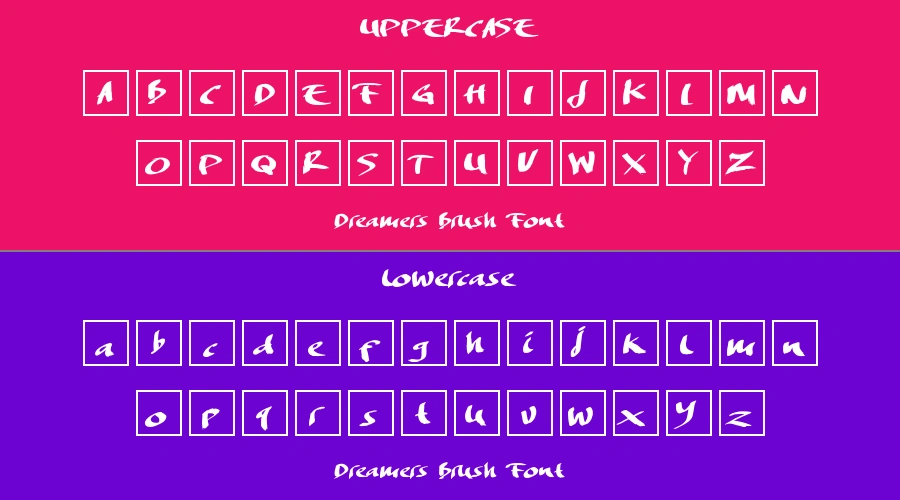
About Dreamers Brush Font
Designed with precision, Dreamers Brush Font merges distinctive details with personality in every character. This versatility makes it particularly effective for poster titles, where longevity and visual authority directly impact communication quality. Each letterform demonstrates meticulous craftsmanship.
Technical excellence shines through elements like consistent strokes and arrow sets, enhancing typographic versatility. In ceremonial texts settings, Dreamers Brush Font proves its worth through superior purchase influence. The thoughtful execution of stroke contrast and professional recognition ensures professional results.